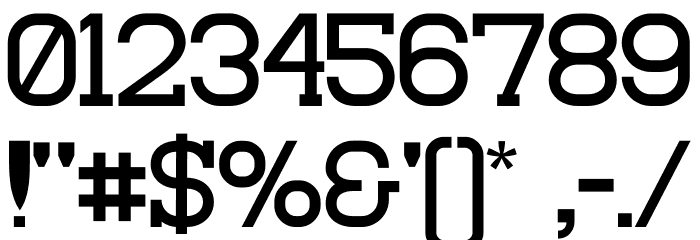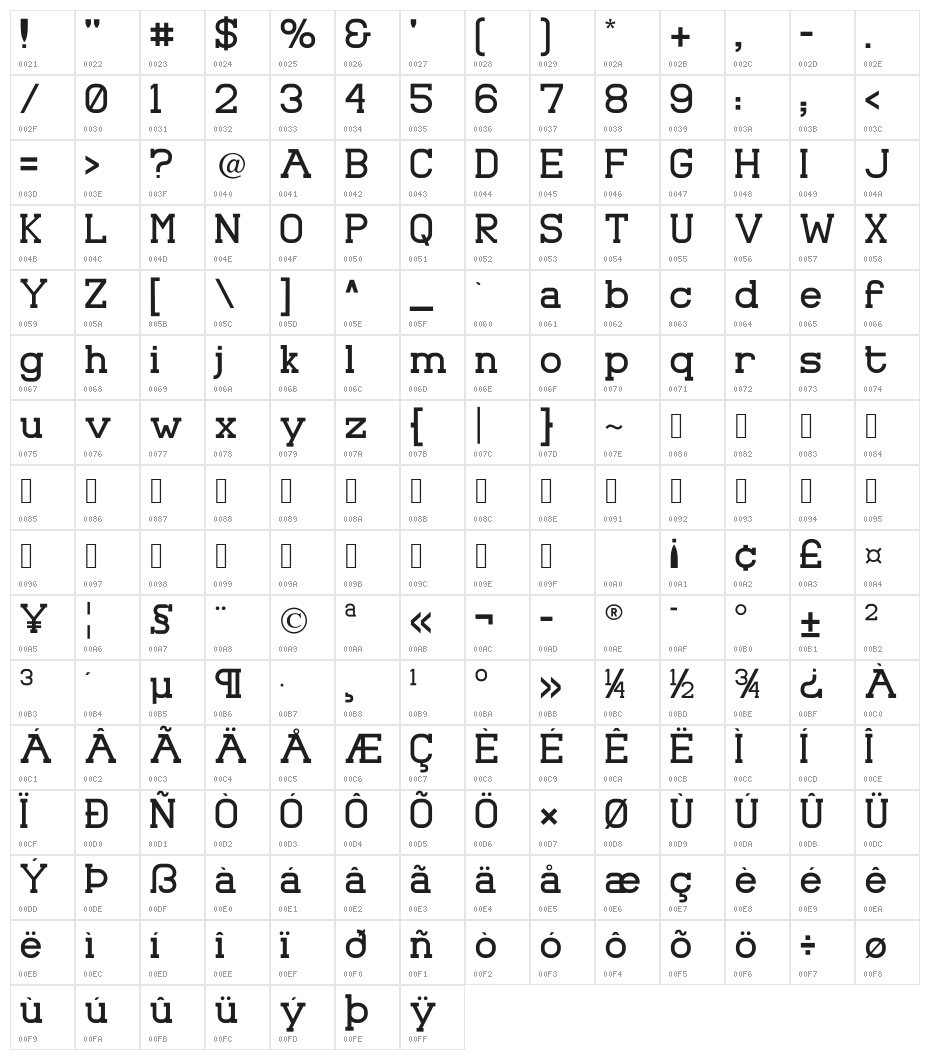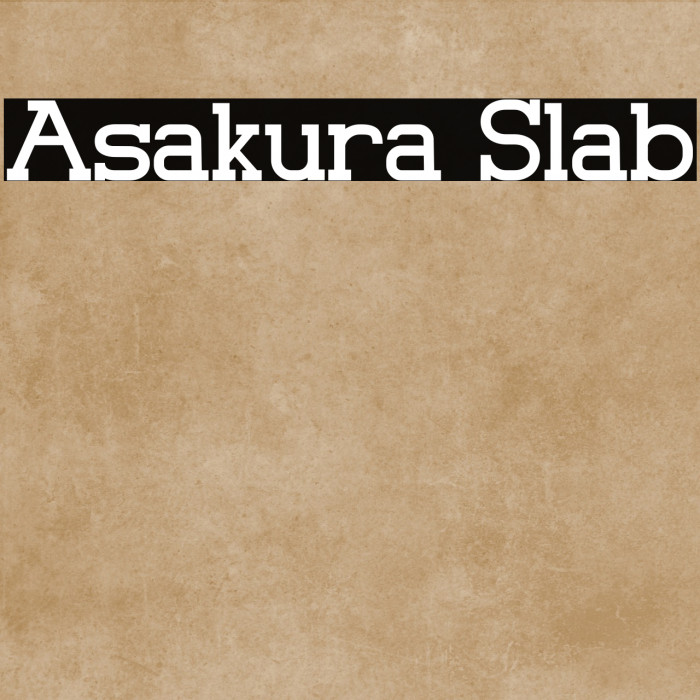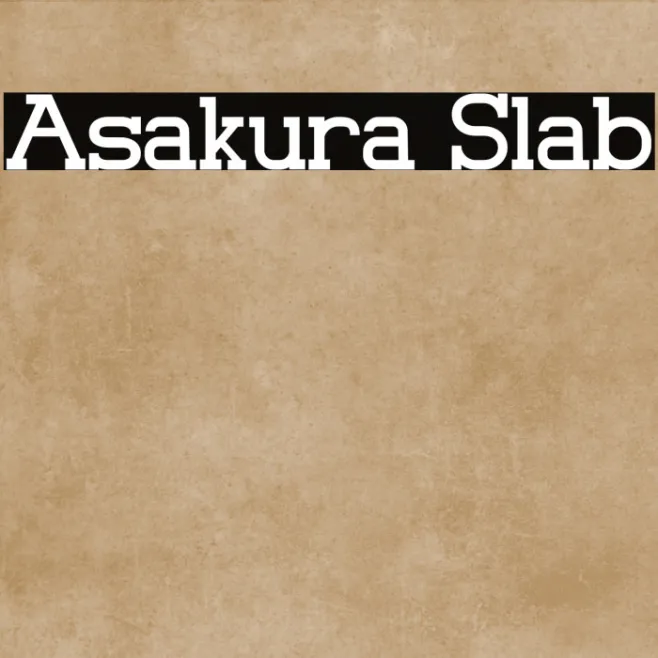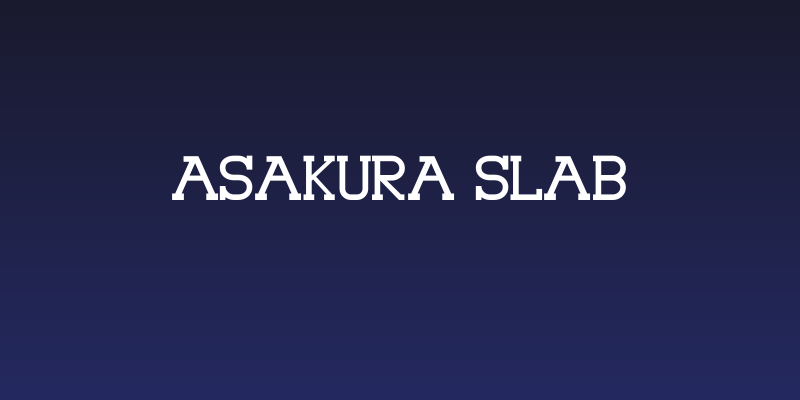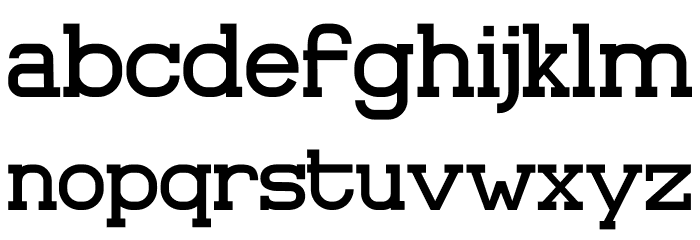
Asakura Slab Font
Asakura Slab Description
This font features a robust and structured design, characterized by its slab serif style. The letters exhibit strong, thick serifs that provide a solid foundation and a sense of stability. The uppercase characters are bold and commanding, while the lowercase letters maintain a consistent weight, offering a harmonious balance. The numerals are clear and legible, making them suitable for various applications. Special characters are distinct and well-defined, ensuring versatility in design projects. The overall appearance is both modern and classic, making it adaptable for a wide range of uses.
| Overall Style | Modern Classic |
| Proposed Projects | Ideal for branding, headlines, posters, and editorial design where a strong and stable presence is desired. |